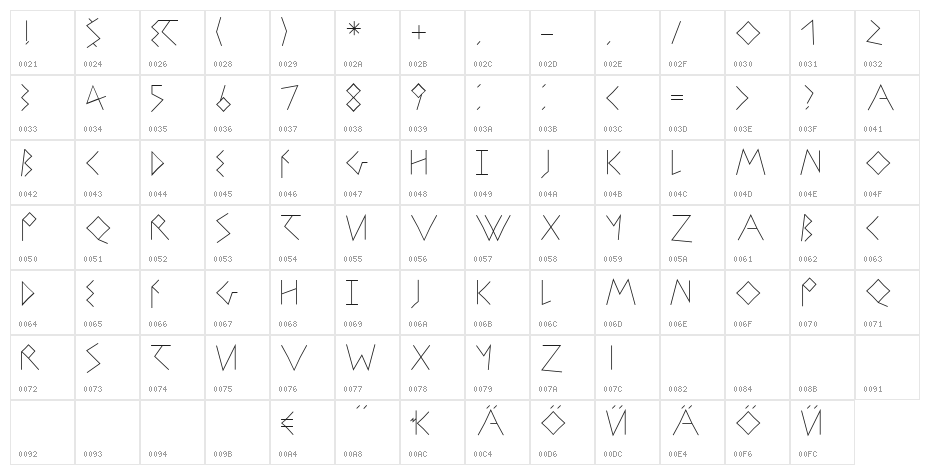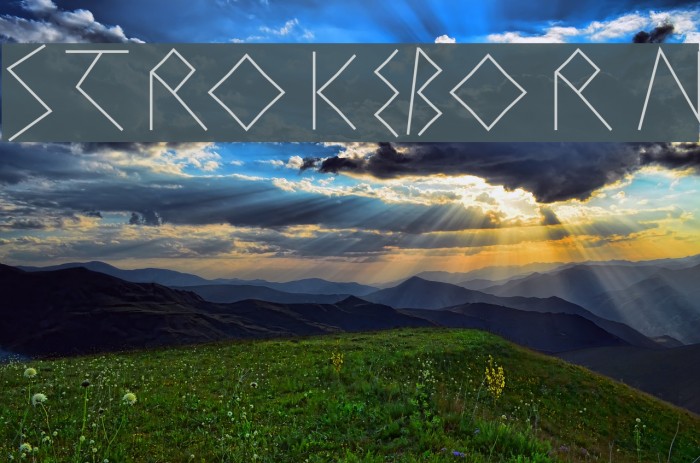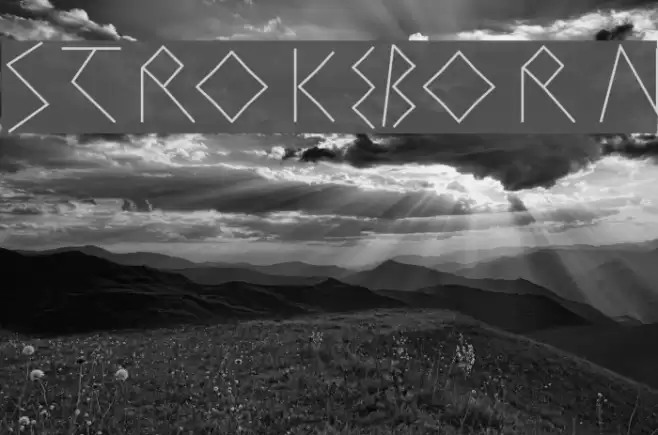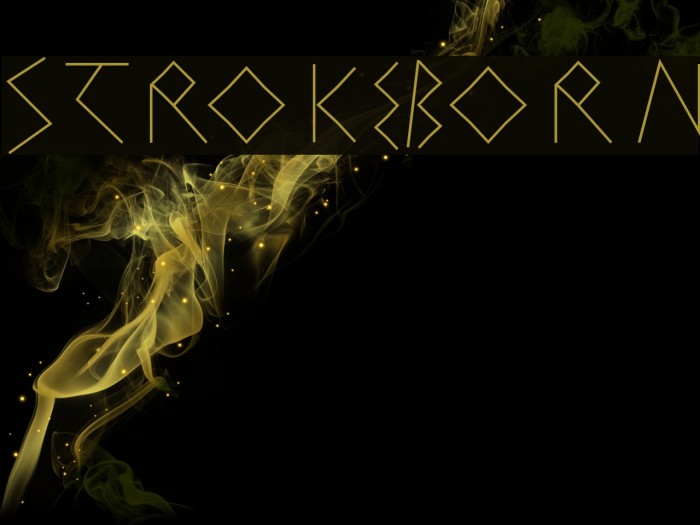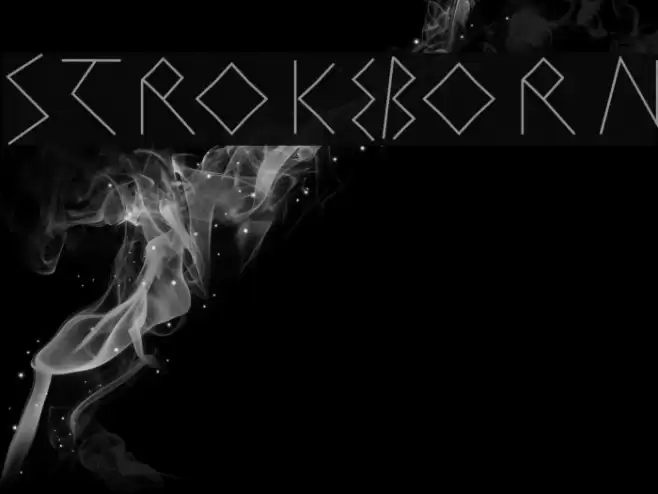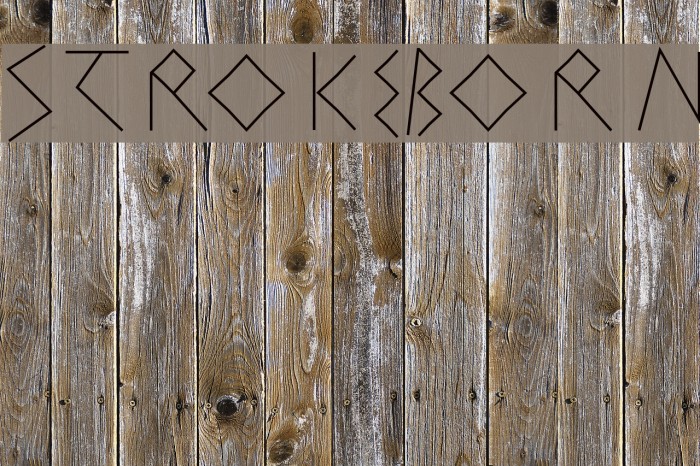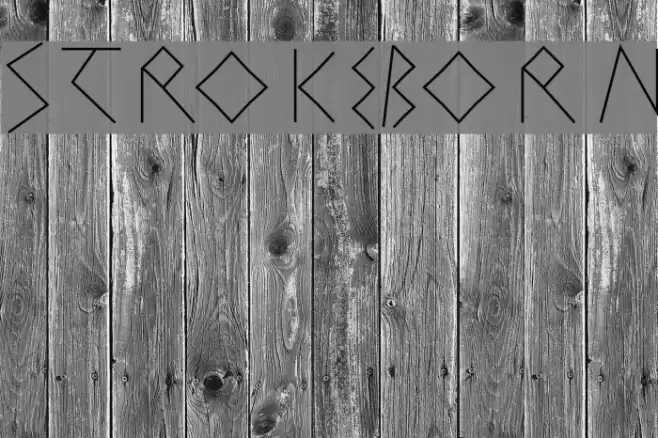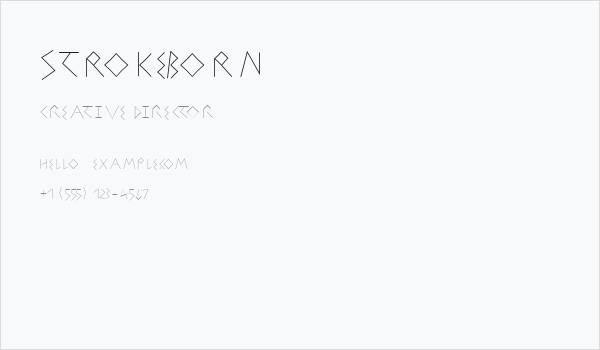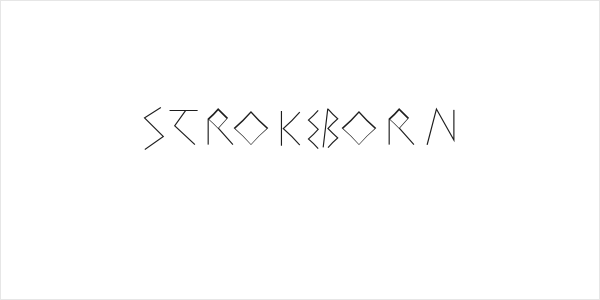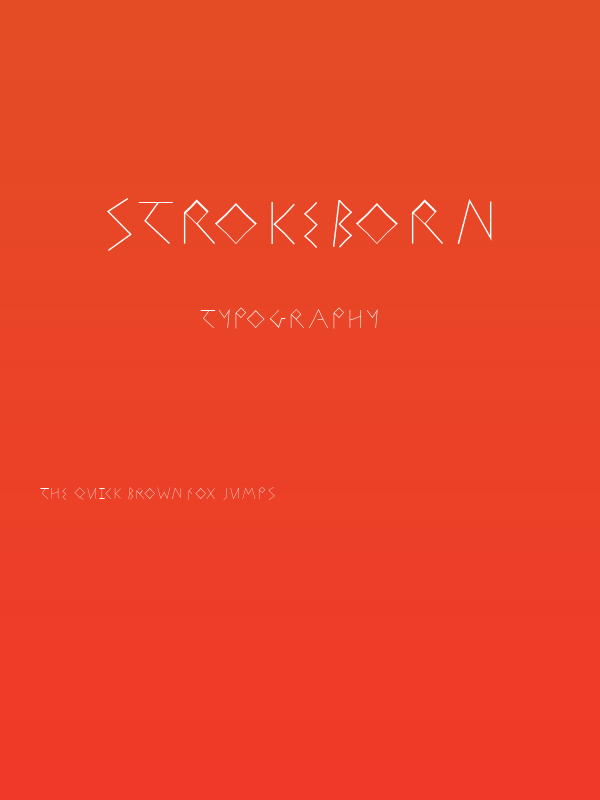
StrokeBorn Font
StrokeBorn Description
This font features a unique, angular design with a geometric and abstract aesthetic. The characters are composed of straight lines and sharp angles, creating a modern and edgy appearance. The uppercase and lowercase letters share a similar style, maintaining consistency across the alphabet. Numbers and special characters are designed with the same angular approach, ensuring a cohesive look. The font's distinct style makes it stand out, offering a futuristic and artistic vibe that is both eye-catching and memorable.